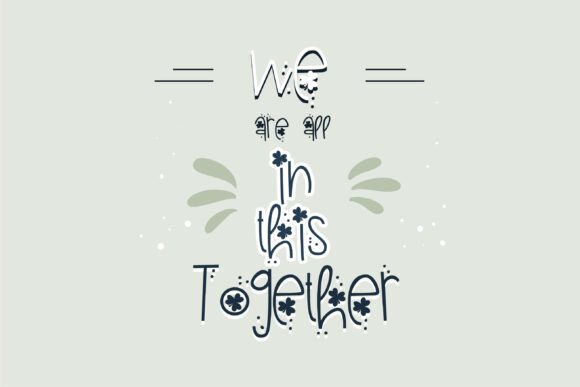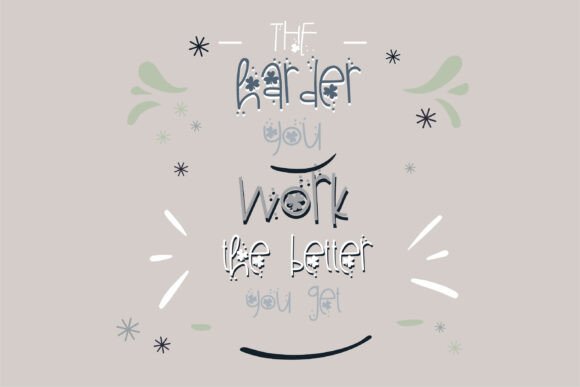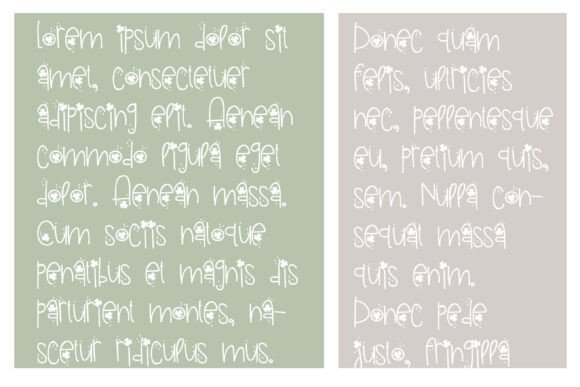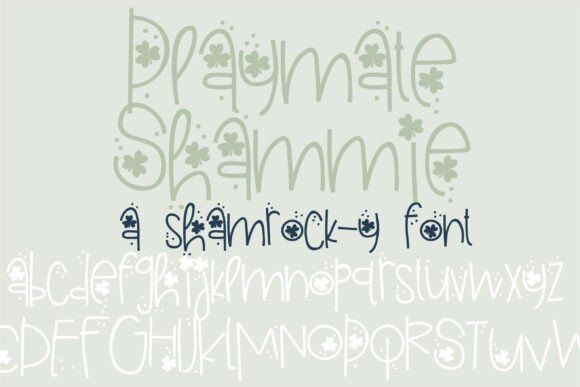
Introduction to Playmate Shammie Font
This hand-crafted sans serif is bouncy, fun, and features clover throughout.
A hand-crafted font is a font that is designed to look like it was written by hand It is often used for invitations, greeting cards, and other items.
Key Features of Playmate Shammie Font
Why Choose Playmate Shammie Font?
Playmate Shammie Font offers exceptional quality and versatility, making it a valuable addition to your design toolkit. Whether you’re creating for personal projects or commercial use, Playmate Shammie Font delivers professional results.